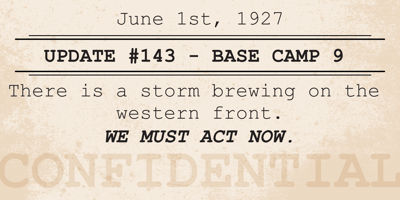
Courier New OS
Courier New OS font
Courier New OS Font Family was designed by published by Monotype. Courier New OS contains 4 styles and family package options. Designed as a typewriter face for IBM, Courier New was re drawn by Adrian Frutiger for IBM Selectric series. A typical fixed pitch design, monotone in weight and slab serif in concept.